Here’s an exclusive collection of 20 Free Fun Fonts that will add a joyful edge to your work.
The Free Fun Fonts Included In This Bundle Are:
5 Handmade Fonts:
- Blitz Font
- Darkstar Font
- GetRun Font
- Holy Cow Font
- PowerofLove Font
6 Handwritten Calligraphy Fonts:
- Batallion Font
- Boronic Font
- Coliseum Font
- Dogmatic Font
- HandsomeDevil Font
- Jiguliny Font
9 Modern Script Fonts:
- Bakery Font
- Customcraft Font
- Fullyflared Font
- Hardwired Font
- LemonAndFresh Font
- Scream Team Font
- The Sangria 2 Fonts
- VelomoCB2 Font
- Mushroom Font
A Sneak Peek Into These Free Fonts Bundle:
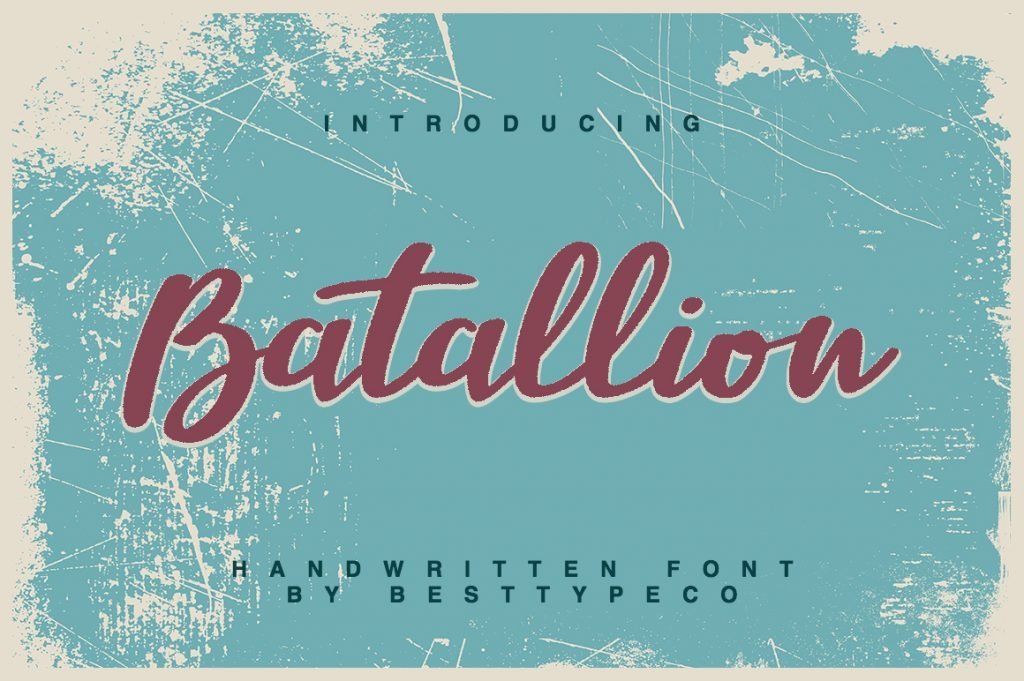
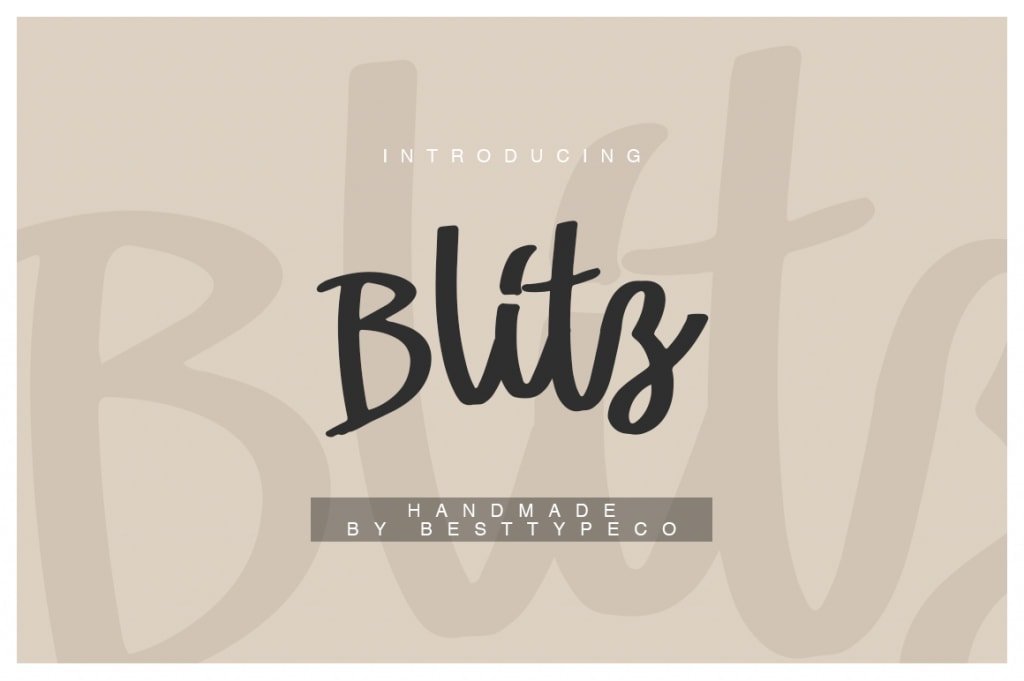
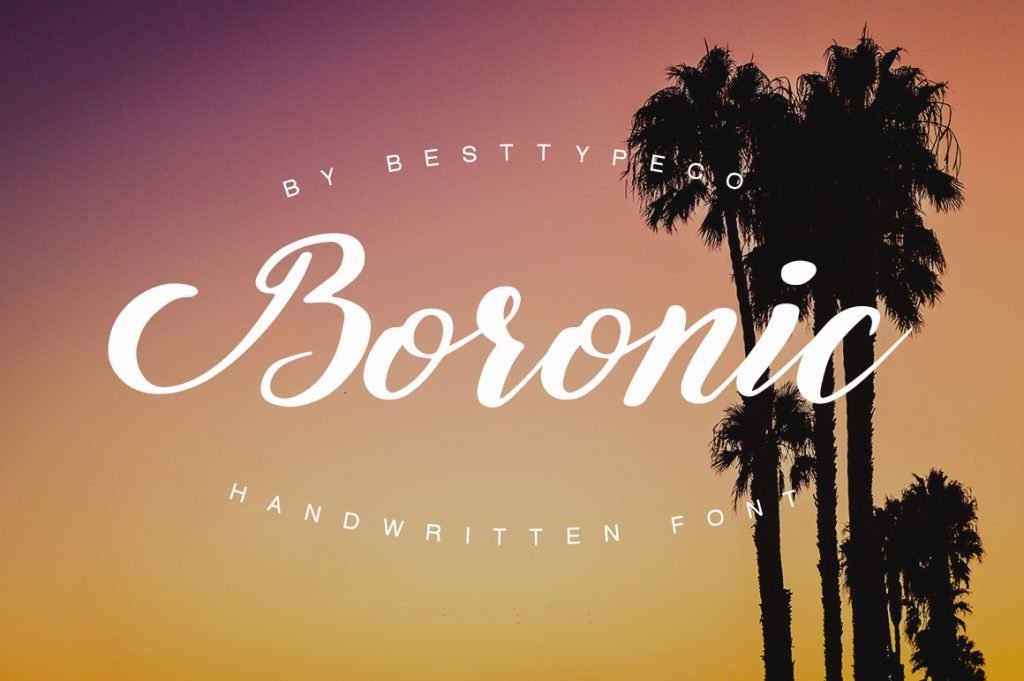
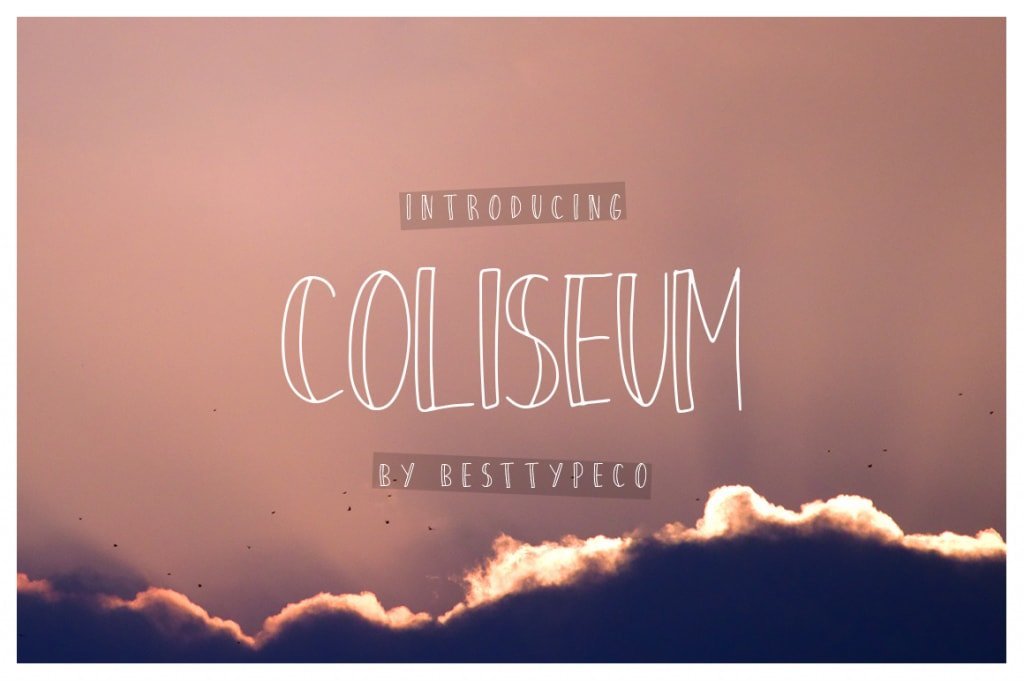
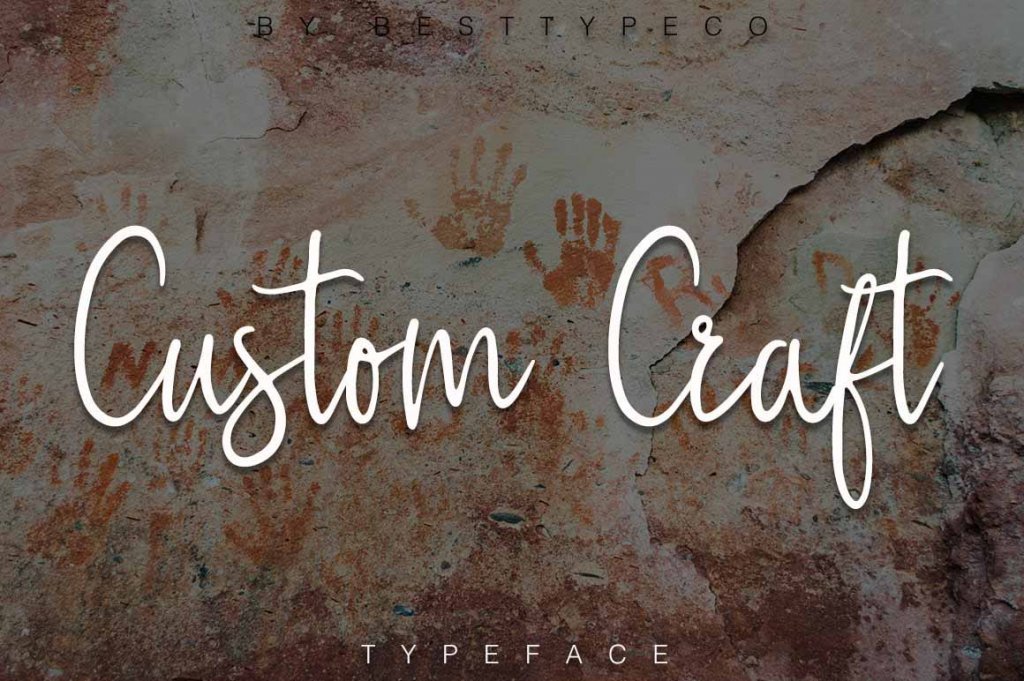
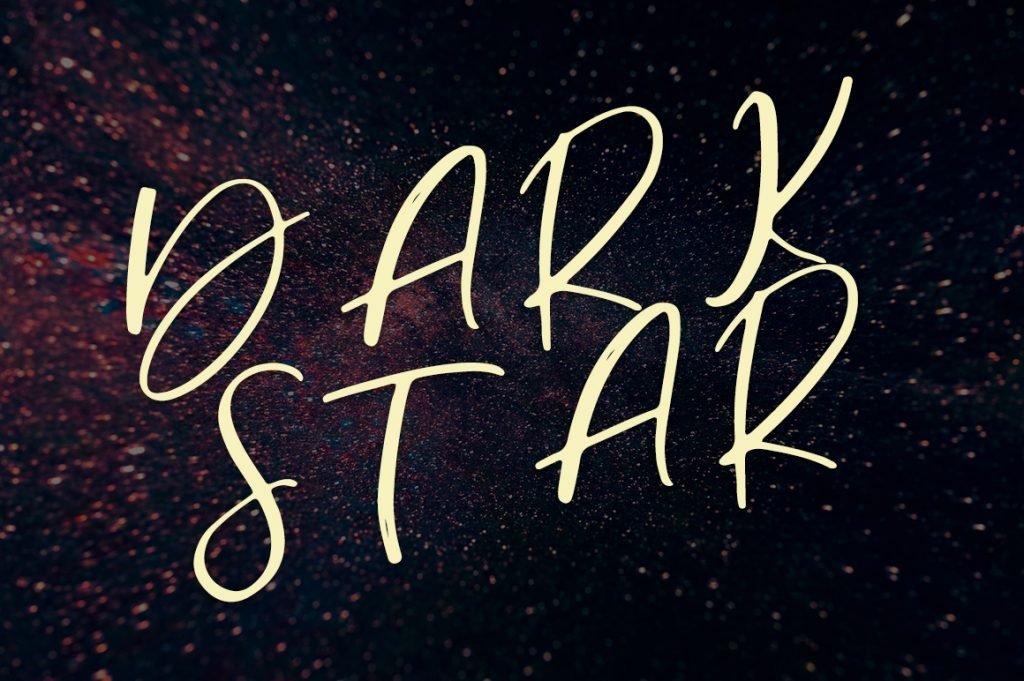
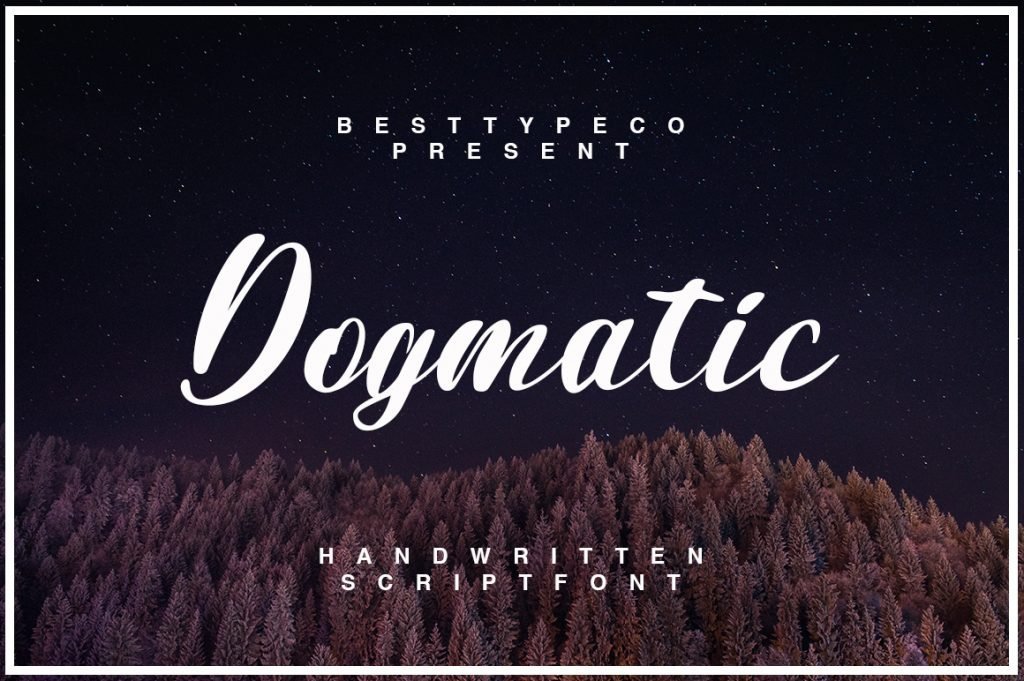
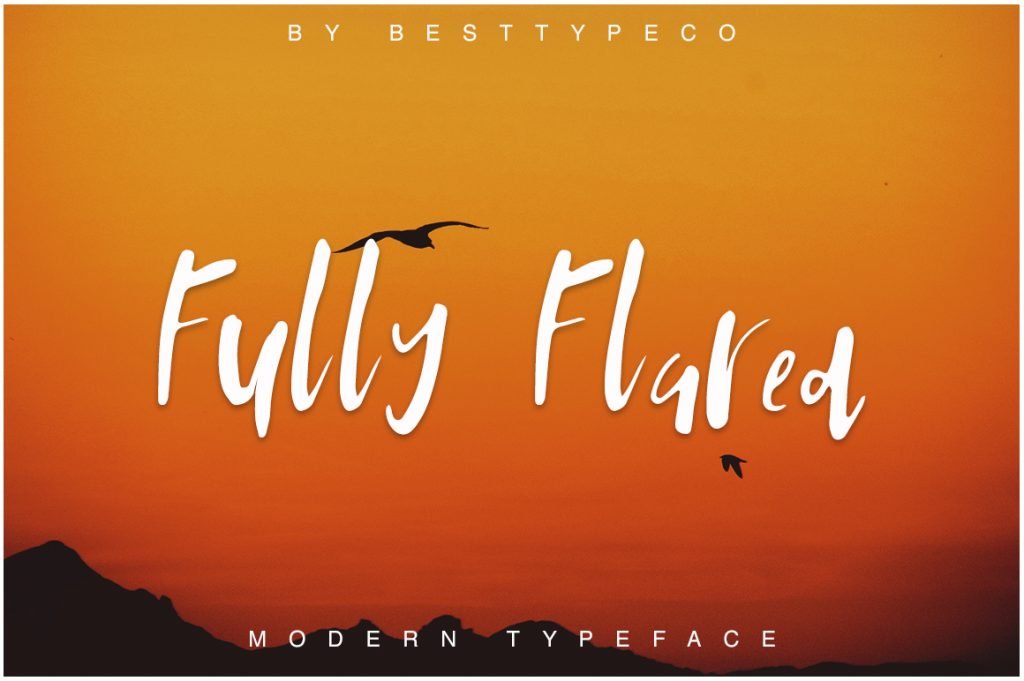
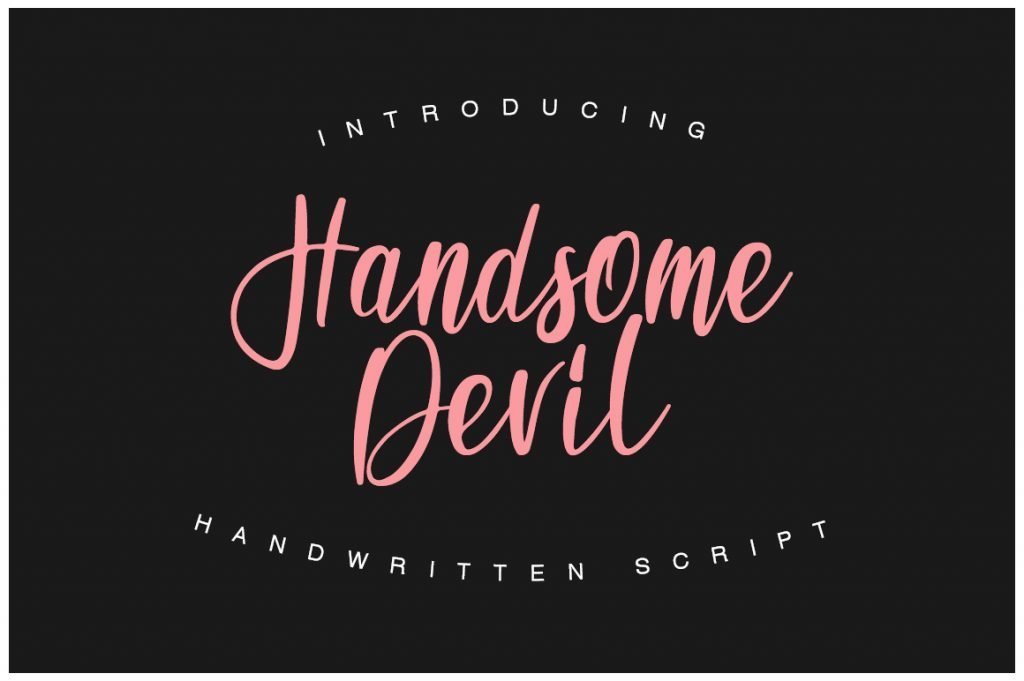
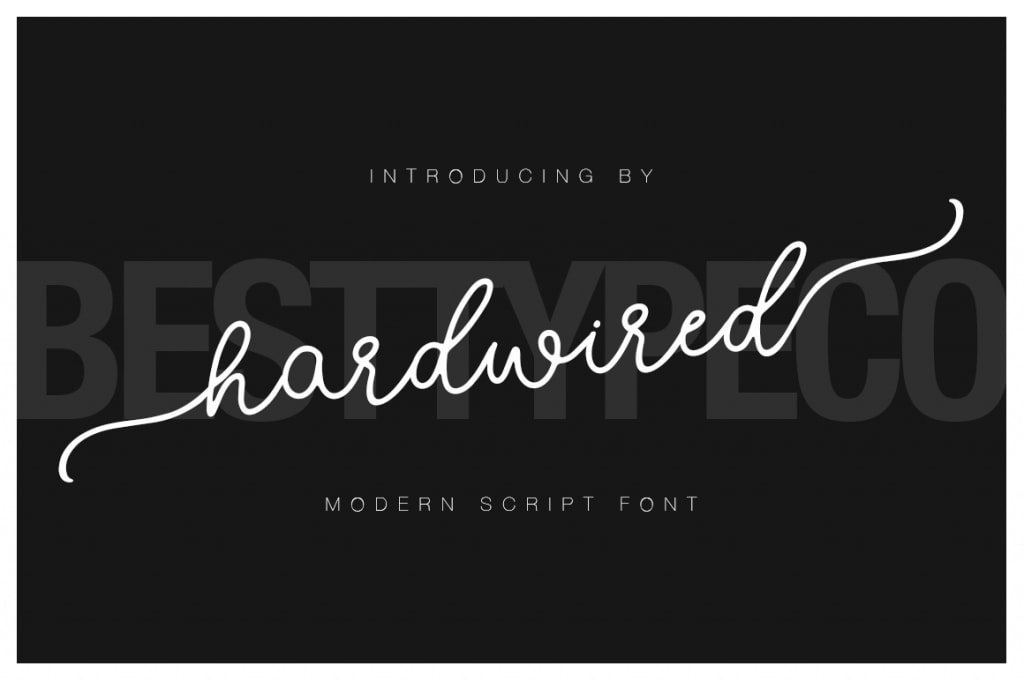
- These fun text fonts support Multiple Languages